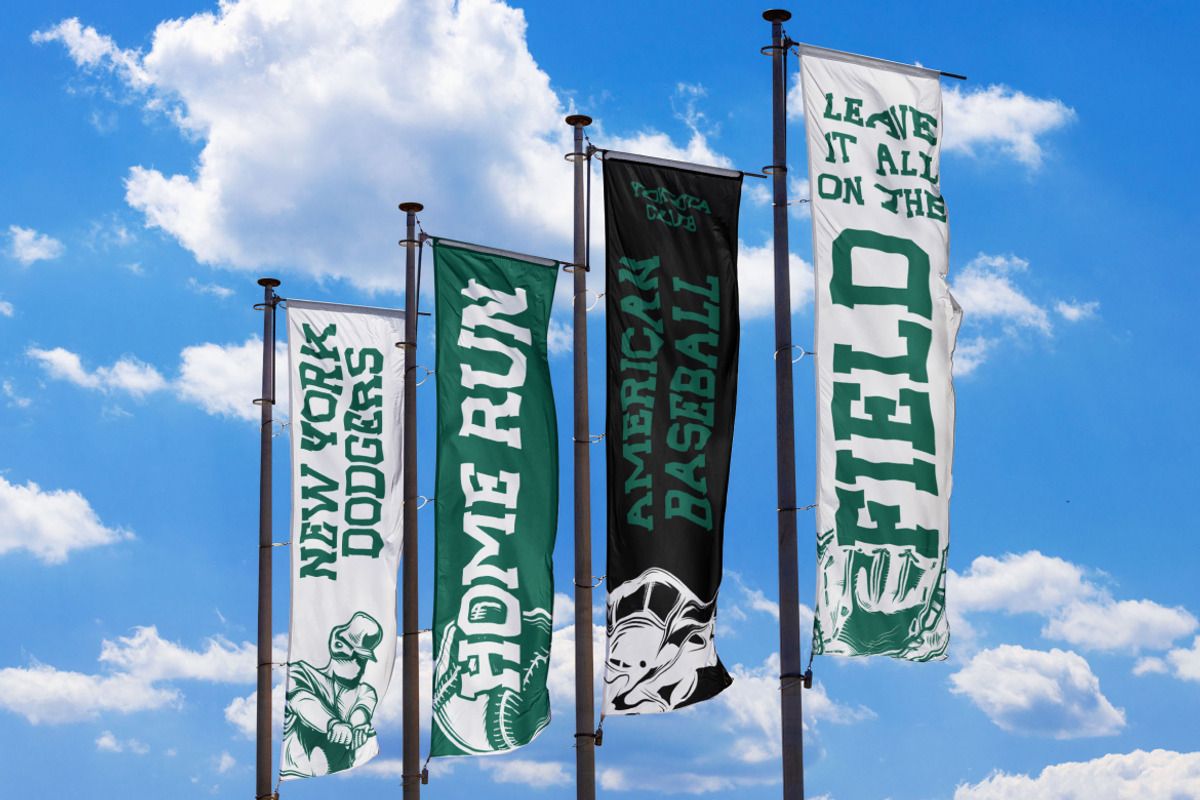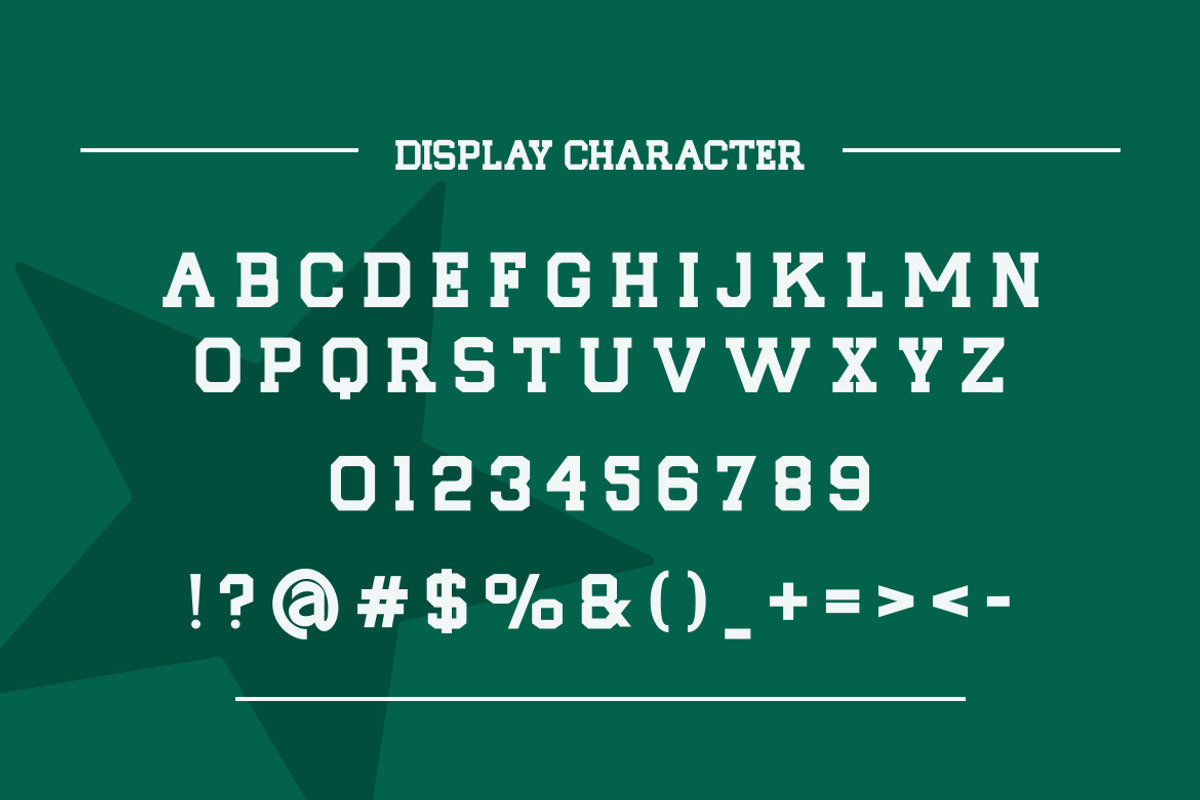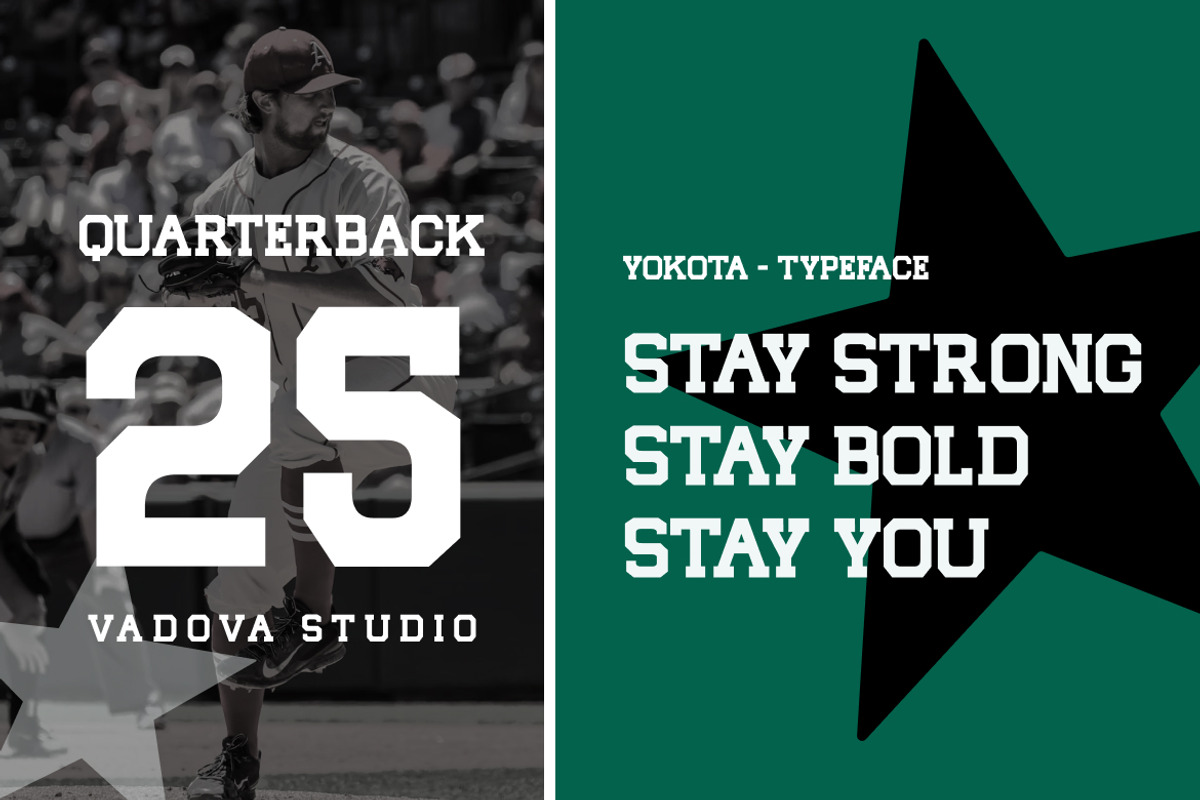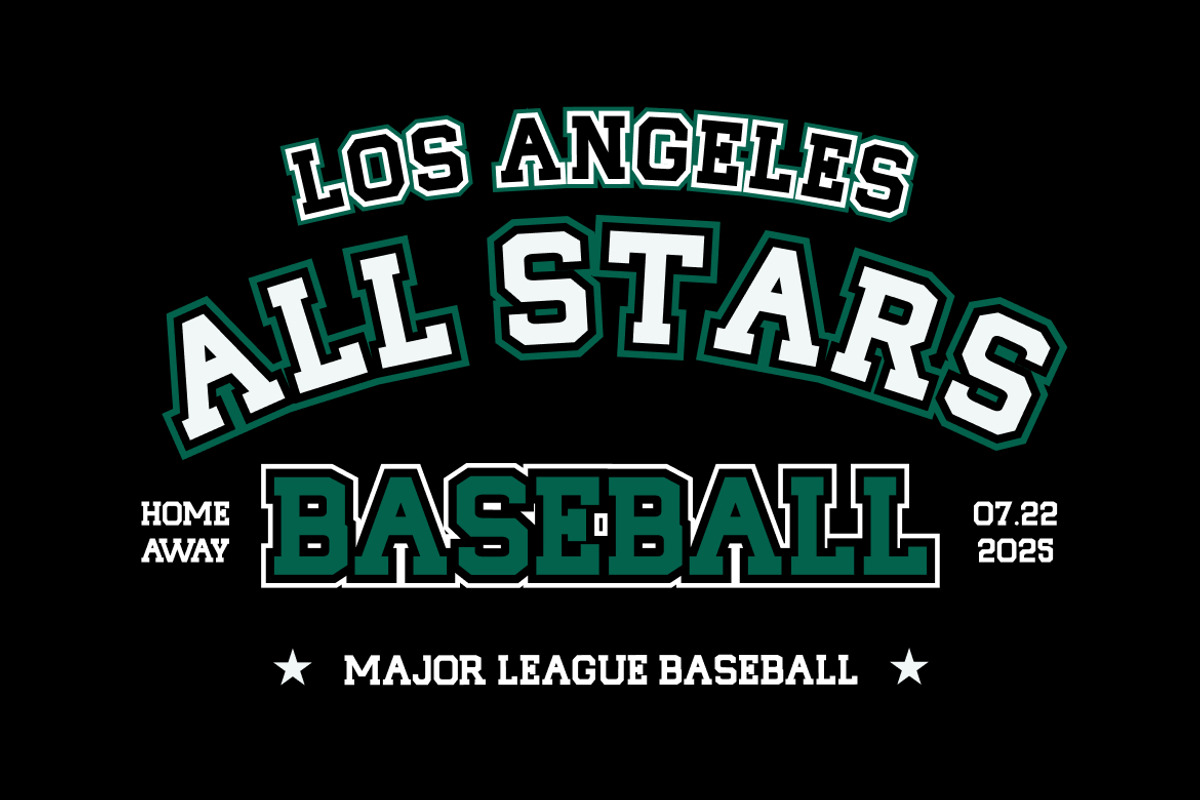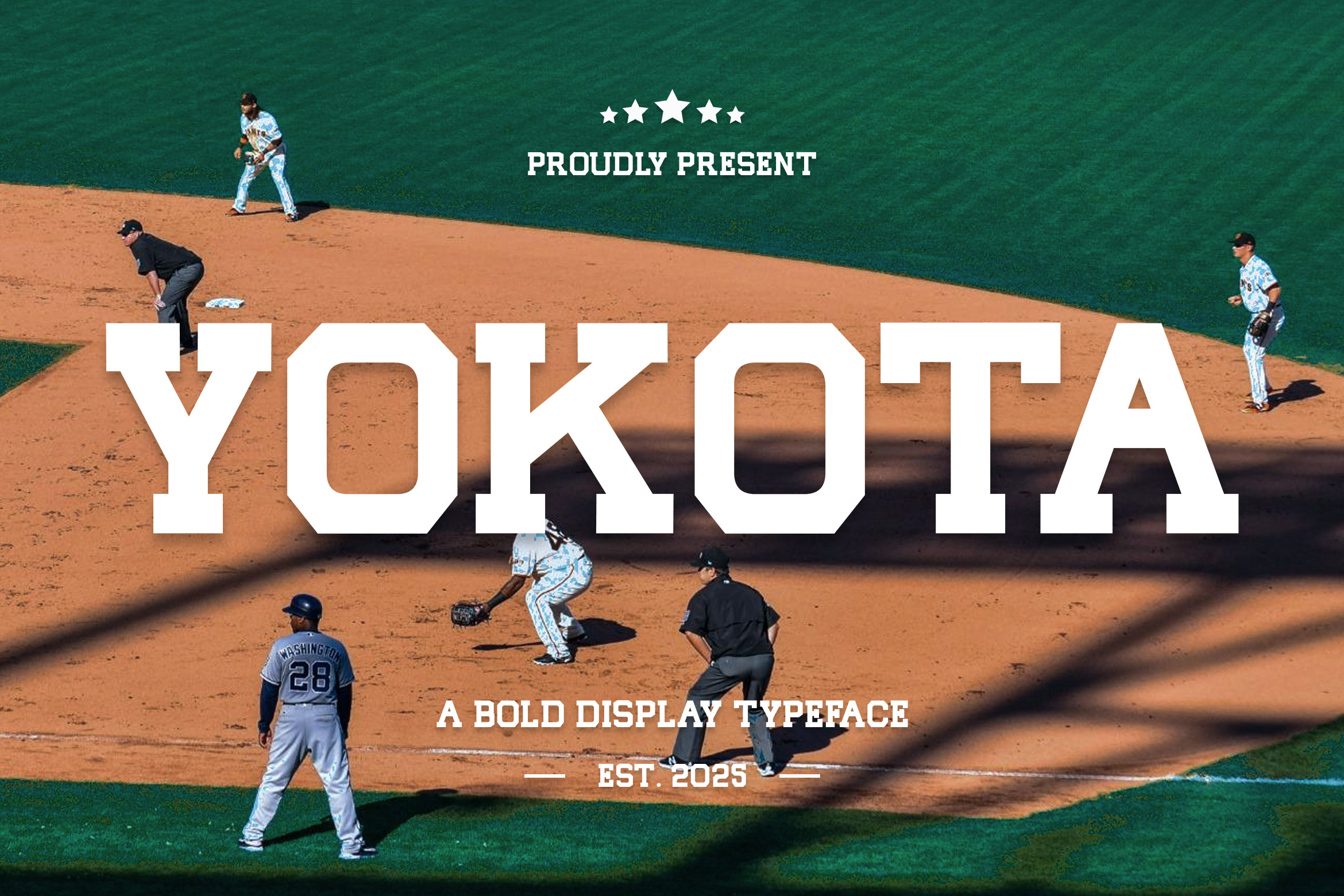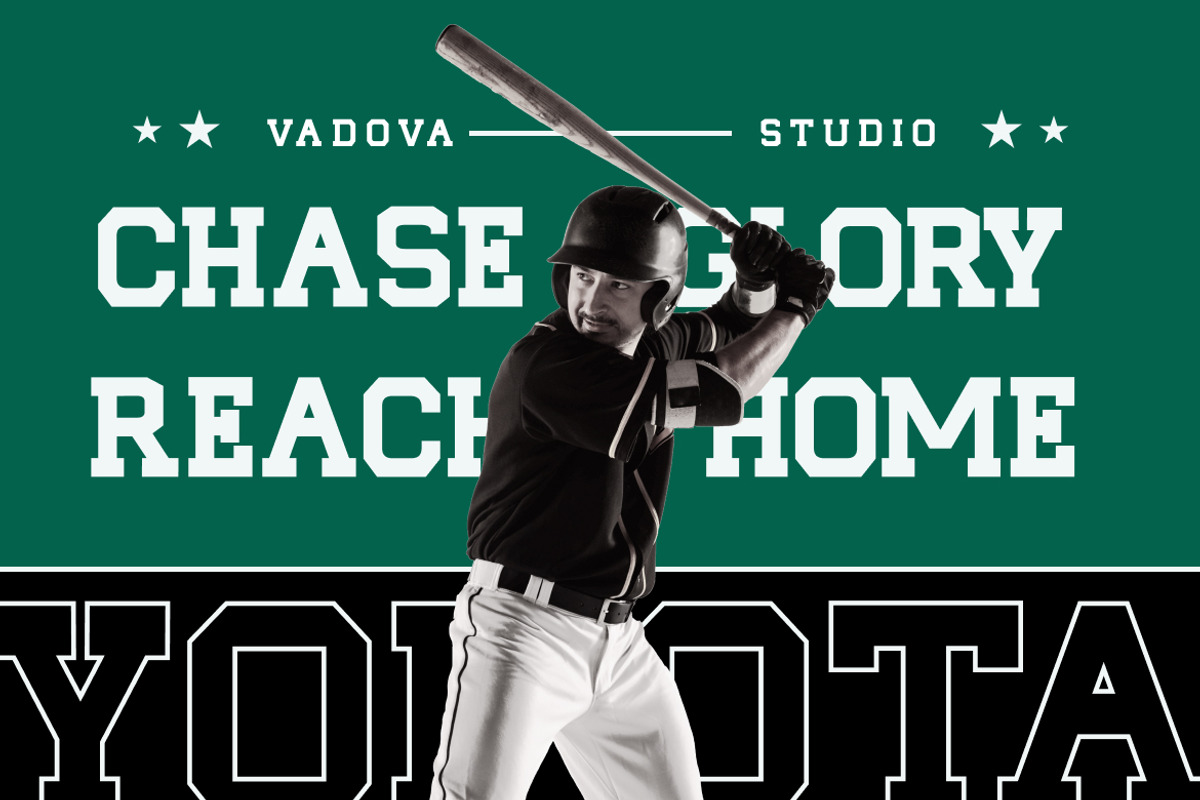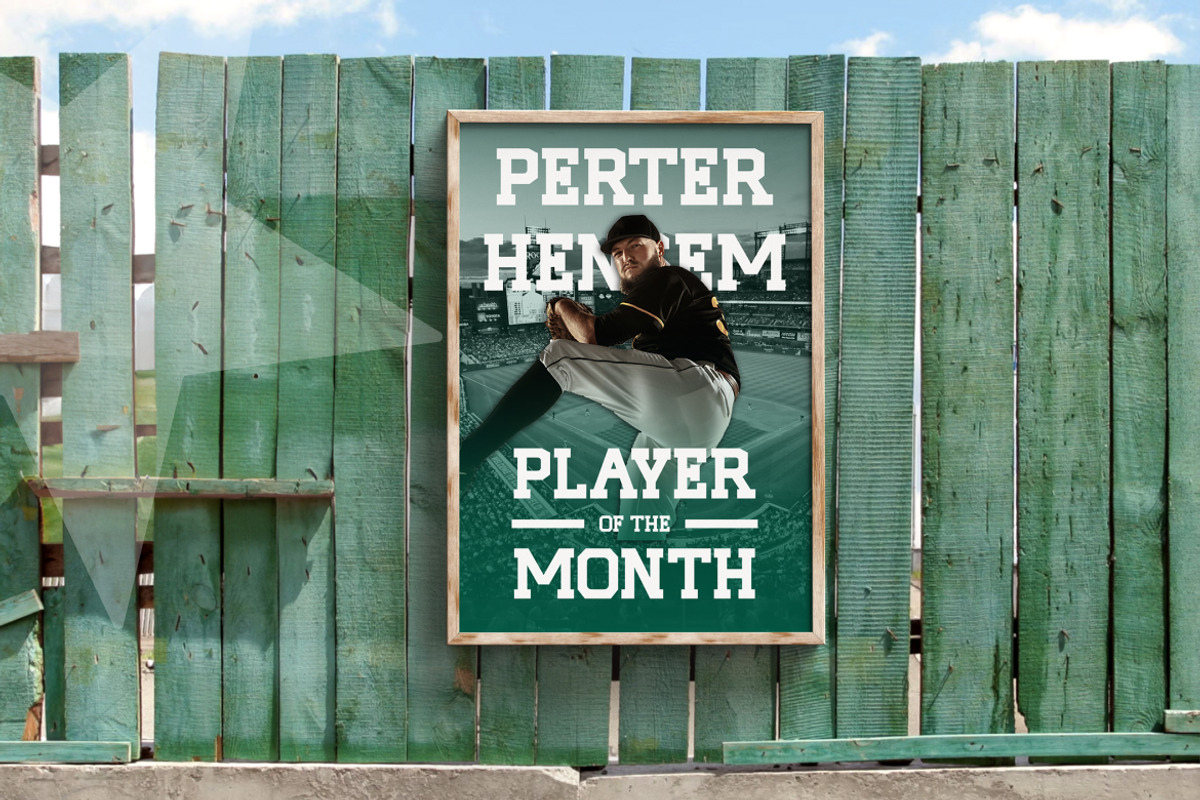
Yokota Bold Display Typeface
Yokota is a powerful bold display typeface designed for standout visibility and confident messaging. With its strong lines, tall proportions, and athletic structure, it’s perfect for sports branding, team logos, game-day posters, and dynamic headline layouts. Whether you're crafting bold modern logos or designing with a vintage varsity vibe, Yokota adapts across print, web, and merchandise with undeniable impact. Ideal for professionals who want their typography to carry weight and style in equal measure.
Main Features
- Ligatures & Alternate
- Numeral & Punctuations